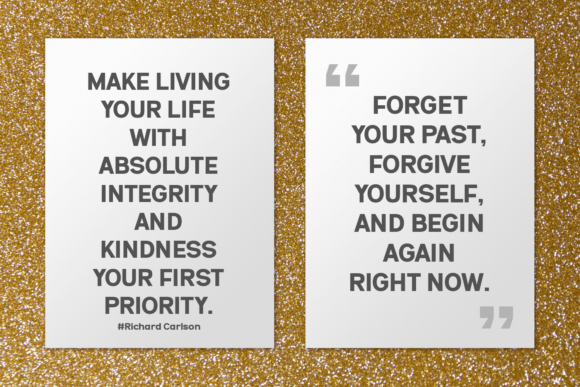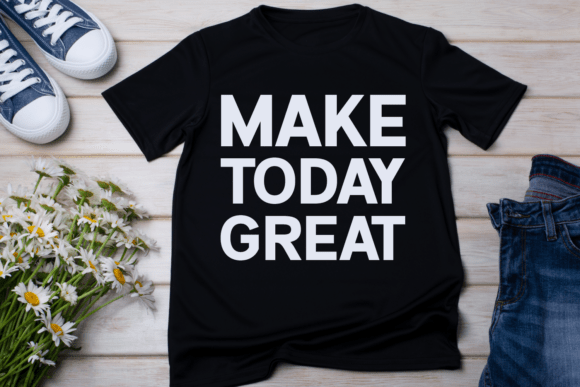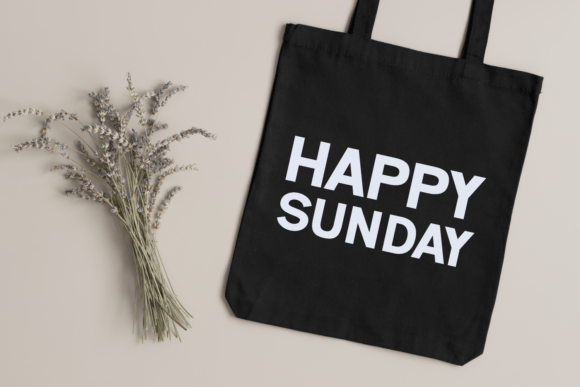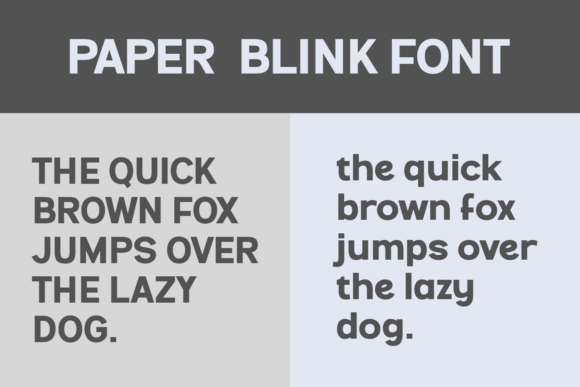
Introduction to Paper Blink Font
Have you ever sat at your desk, surrounded by half-finished projects and scraps of paper, waiting for that spark of creativity to strike? It’s a feeling many designers know all too well, but for those who have found it, the rush of excitement is unbeatable. For me, that spark came when I stumbled upon the Paper Blink Font, a stunning sans serif design that seemed to bring my creative projects to life.
As a designer, having access to high-quality design resources like the Paper Blink Font is invaluable. It’s not just about having a new tool to add to your arsenal, but about being able to elevate your work and make it stand out from the crowd. With its transparent background and versatile style, the Paper Blink Font is perfect for a wide range of creative projects, from stickers and labels to inspiring quotes and circuit creations.
Key Features of Paper Blink Font
- High-quality design resource suitable for various creative projects, including digital art, graphics, and publishing.
- Comes with a transparent background, making it easy to integrate with any design or background.
- Includes a range of glyphs and characters, ideal for creative writing, typography, and design experimentation.
- Supports a wide range of languages, making it a versatile design resource for international projects.
- Designed with a unique aesthetic, the Paper Blink Font is perfect for adding a touch of elegance and sophistication to any design project.
- Available in a single font size, making it easy to use and adapt to various design requirements.
Honest Review: Paper Blink Font
I recently had the chance to work with the Paper Blink Font, and I must say it’s been a great addition to my design resources. This high-quality font is perfect for any creative project that requires a touch of elegance and sophistication.
- ✨ Transparent background support: This feature allows for seamless integration with any design element, giving you complete control over your project’s visual flow.
- ✨ High-quality design: The font’s sleek and modern design makes it perfect for a wide range of creative projects, from logos to print materials.
- ⚠️ Limited character set: While the font is perfect for standard characters, it may not be suitable for more complex languages or special characters.
- ⚠️ Some compatibility issues: I experienced a few minor glitches when using the font in certain design software, but these issues were easily resolved with a bit of troubleshooting.
Overall, I’m thoroughly impressed with the Paper Blink Font. Its versatility, high-quality design, and free download make it an excellent addition to any design resource library. While it may have a few limitations, I highly recommend giving it a try for your next creative project.
Paper Blink Font is perfect for creative projects such as invitations, flyers, and social media graphics. Its high-quality design and transparent background make it ideal for use in design resources and promotional materials.
Getting the Most Out of Paper Blink Font
To get the most out of Paper Blink Font, experiment with different font sizes, colors, and styles to create unique designs. You can also combine it with other fonts and graphics to add visual interest to your projects.
Alternatives to Paper Blink Font
Montserrat is a popular sans-serif font ideal for creative projects, especially those requiring a high-quality, modern look. It’s available for free download and can be used as a design resource for various applications.
Montserrat is more versatile than Paper Blink Font, with a wider range of font weights and styles available. It’s suitable for use on transparent backgrounds and can be used in both digital and print designs.
Q: Is the Paper Blink Font a high-quality design resource, suitable for professional use?
Yes, the Paper Blink Font is a high-quality design resource, carefully crafted to meet the needs of professional designers and creative professionals. With its clean lines, elegant typography, and transparent background, the Paper Blink Font is an excellent choice for a wide range of design projects, from branding and marketing materials to creative projects and digital art.